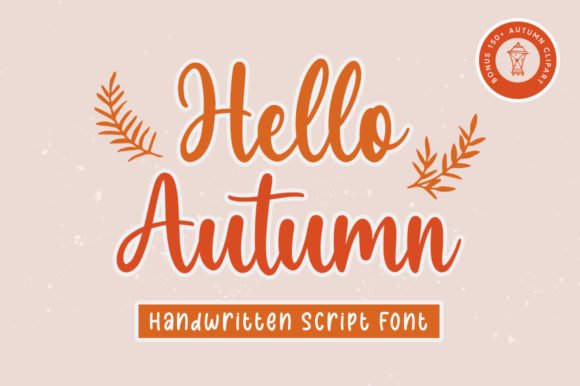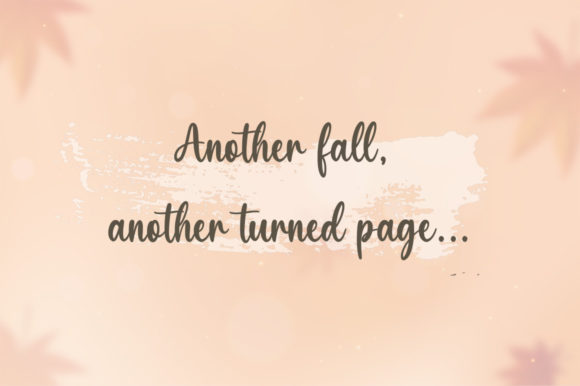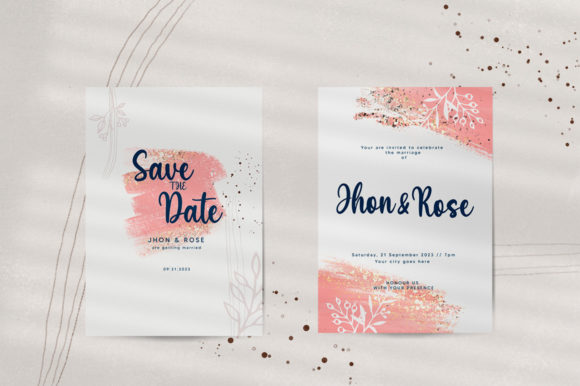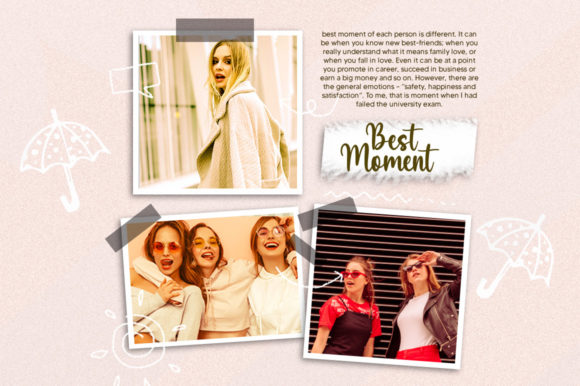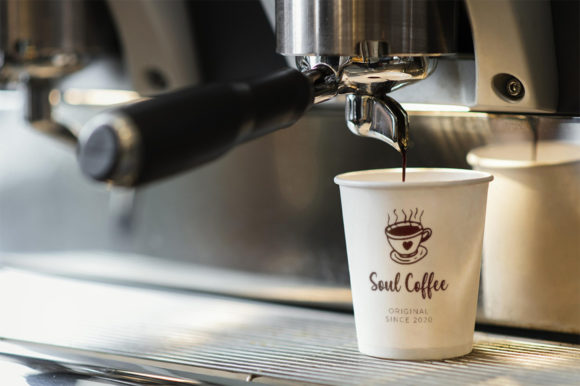
The Perfect Font for a Cozy Autumn Evening
As you sit by the window, watching the leaves change colors and the crisp autumn breeze rustle the trees, you can’t help but feel inspired. The creative juices start flowing, and you find yourself brainstorming ideas for a new project. You want to capture the essence of this cozy autumn evening in your design, but you’re not sure where to start.
Enter the Hello Autumn Font, a charming script font that embodies the warmth and playfulness of the season. This lovely font features characters that seem to dance along the baseline, adding a touch of whimsy to any design. Whether you’re creating a seasonal greeting card, a fall-themed website, or a cozy coffee shop menu, the Hello Autumn Font is the perfect addition to bring your ideas to life.
- Unique Characteristics: Hello Autumn Font features a warm, hand-painted feel, with intricate details and textures that evoke the cozy atmosphere of autumn.
Hello Autumn Font Review
I recently had the chance to work with the Hello Autumn Font, and I have to say, it’s a unique and charming addition to any design project. ✨ Here are some things that I think work particularly well:
- Warm and inviting aesthetic: The Hello Autumn Font has a cozy, autumnal feel that’s perfect for seasonal designs, product packaging, or any project that needs a touch of warmth.
- Legibility: Despite its decorative nature, the font is surprisingly easy to read, making it a great choice for body text or headings.
- Character customization: The font offers a range of customization options, allowing you to adjust the size, color, and even the level of distressing to fit your design needs.
- Limited font sizes: While the font is highly customizable, it’s not ideal for extremely large or small font sizes, which can result in a loss of detail and legibility.
- No extensive language support: The font is primarily designed for English, which may limit its use for multilingual projects.
Overall, I think the Hello Autumn Font is a great addition to any designer’s toolkit, especially for seasonal or rustic-themed projects. While it may have some limitations, its unique aesthetic and customization options make it a versatile and effective choice for a wide range of design applications.
For best results, use “Hello Autumn Font” for titles, headings, and body text in designs related to fall, Thanksgiving, or harvest themes.
Use “Hello Autumn Font” in conjunction with other fall-themed graphics, such as leaves, pumpkins, or acorns, to create a cohesive and seasonal design.